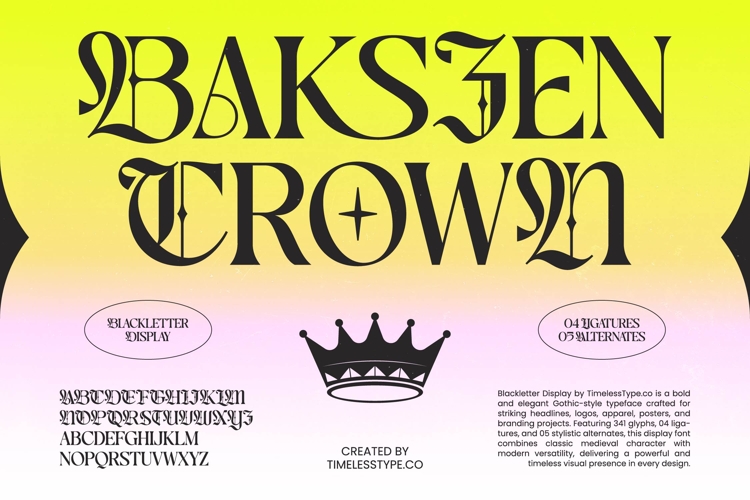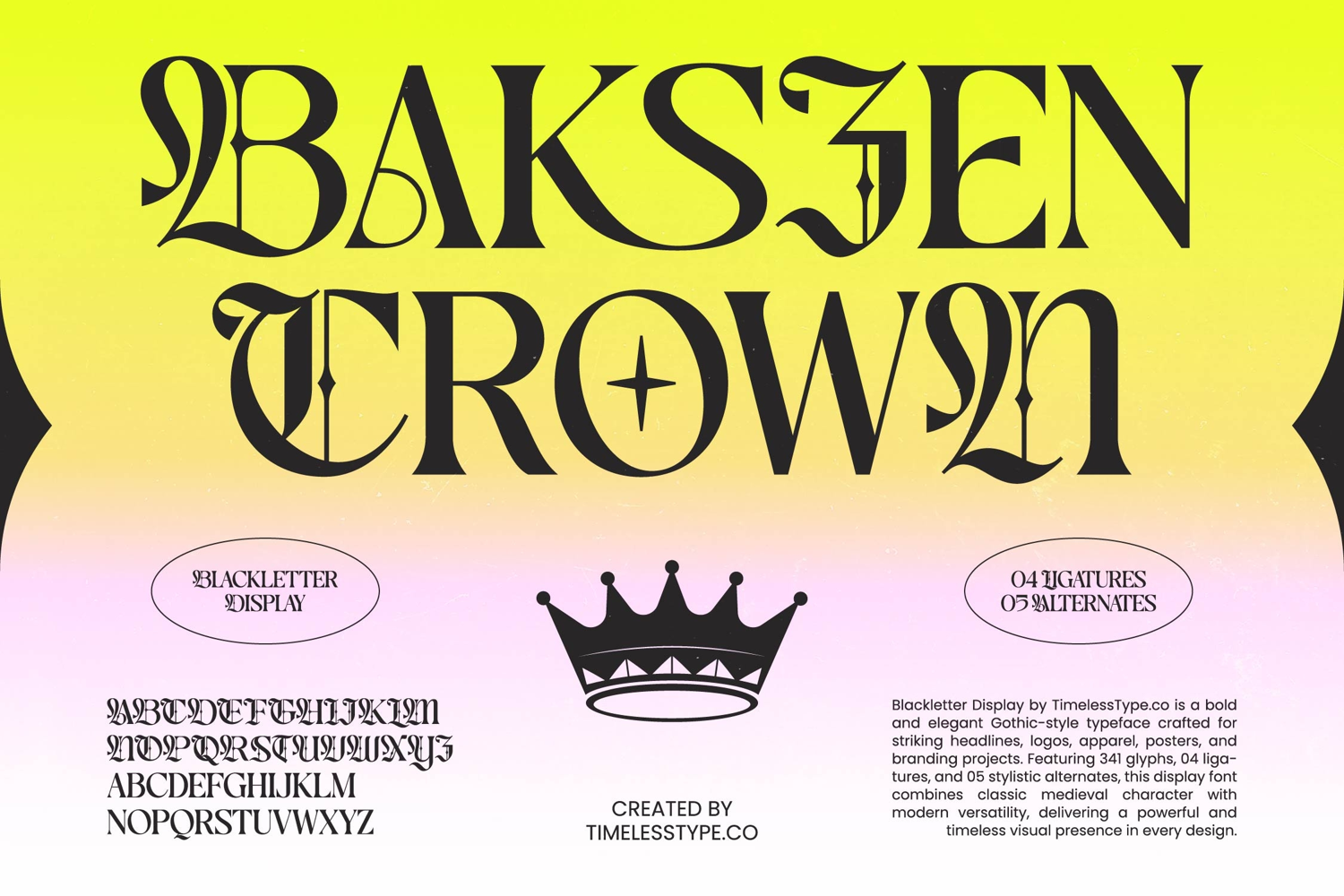
Bakszen Crown - Blackletter Display
Command attention with a fusion of historical grandeur and contemporary edge using Bakszen Crown - Blackletter Display. This high-contrast typeface masterfully blends classic medieval character with modern versatility, making it a standout choice for any creative professional. With its bold gothic-style architecture and refined stylistic alternates, the font provides a powerful visual presence that demands to be seen in any premium design environment.
Expand your creative reach and communicate effectively to a diverse audience with ease. With its extensive multilingual support, Bakszen Crown - Blackletter Display adapts seamlessly across global markets, making it incredibly versatile for international projects. This technical robustness ensures that your typographic identity remains consistent and visually striking regardless of the geographical focus or linguistic requirements of your global branding strategy.
Unlock a world of design possibilities through bespoke applications that define excellence. Bakszen Crown - Blackletter Display is the perfect solution for luxury branding, high-end packaging, and editorial design where a bold statement is required. It excels in apparel design, logo creation, and striking headlines, offering a sophisticated aesthetic that elevates poster designs and digital media to an elite level.